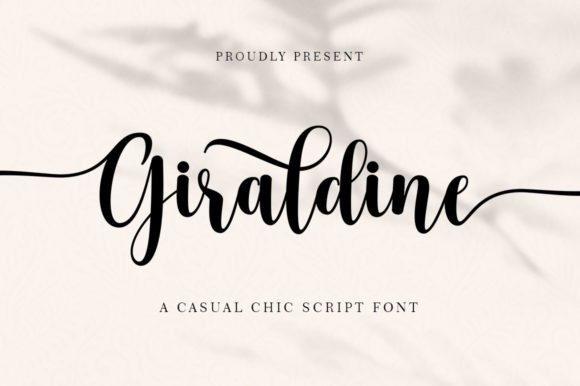
Giraldine Font
Giraldine Script Font is a dazzling handwritten font. This versatile script font has a wide spectrum of applications ranging from greeting cards to headlines and is guaranteed to add a romantic feel to your next project.